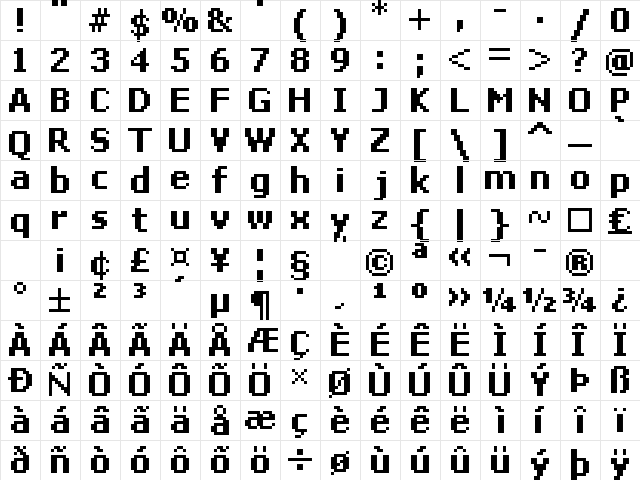
px Ver 8pt bold Regular
Design Context for px Ver 8pt bold Typeface
px Ver 8pt bold offers clean, dependable letterforms without strong stylistic allegiance, making it a practical choice for designers who need flexibility. Its bold stroke weight gives it real presence on the page.